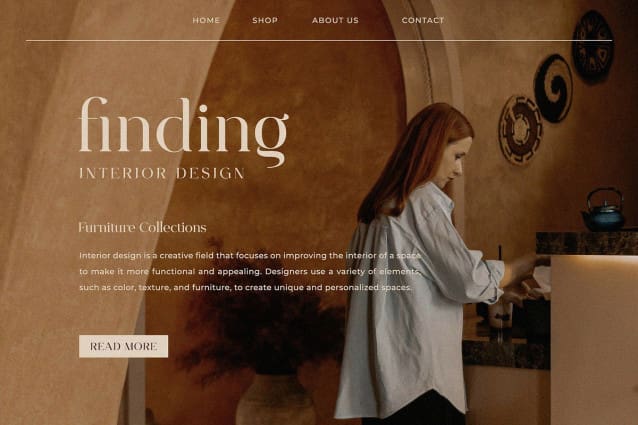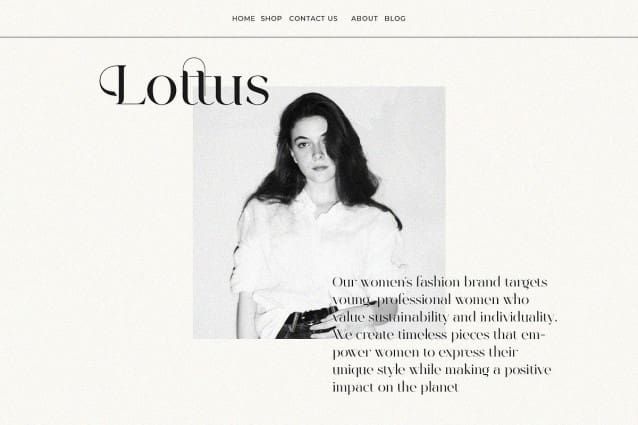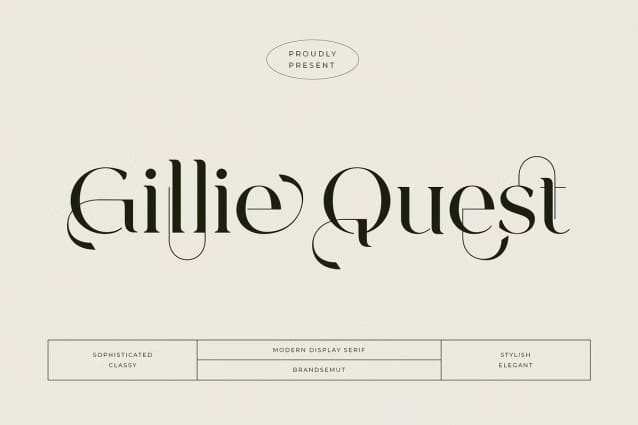
Gillie Quest Font
Gillie Quest Font is a elegant, classy and modern display serif, best used as a display for headings, logos, branding, magazines, product packaging and invitations. GillieQuest equipped with Ligature and many Alternates and come with clean lines and smooth curves give any project an extra touch of class.